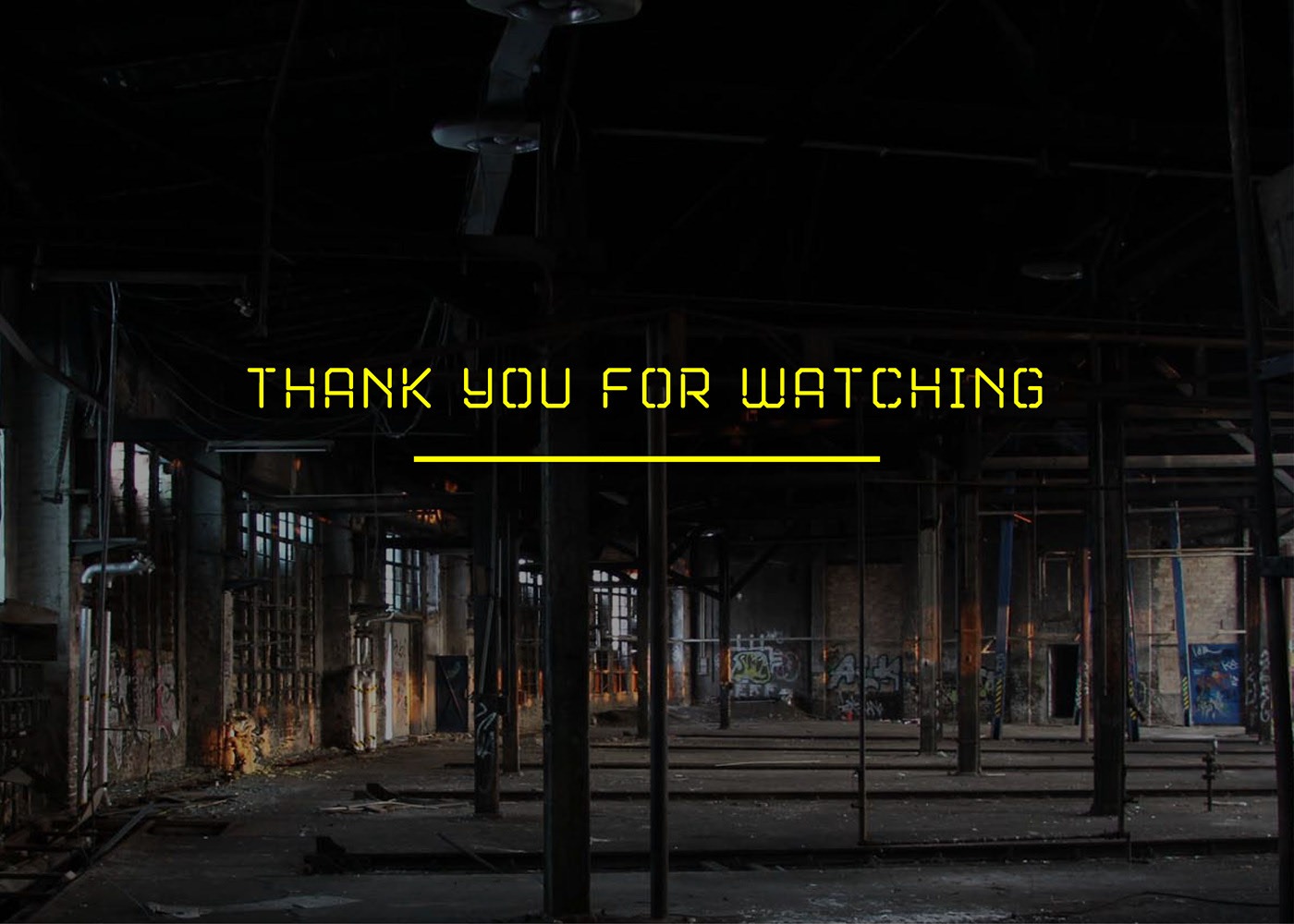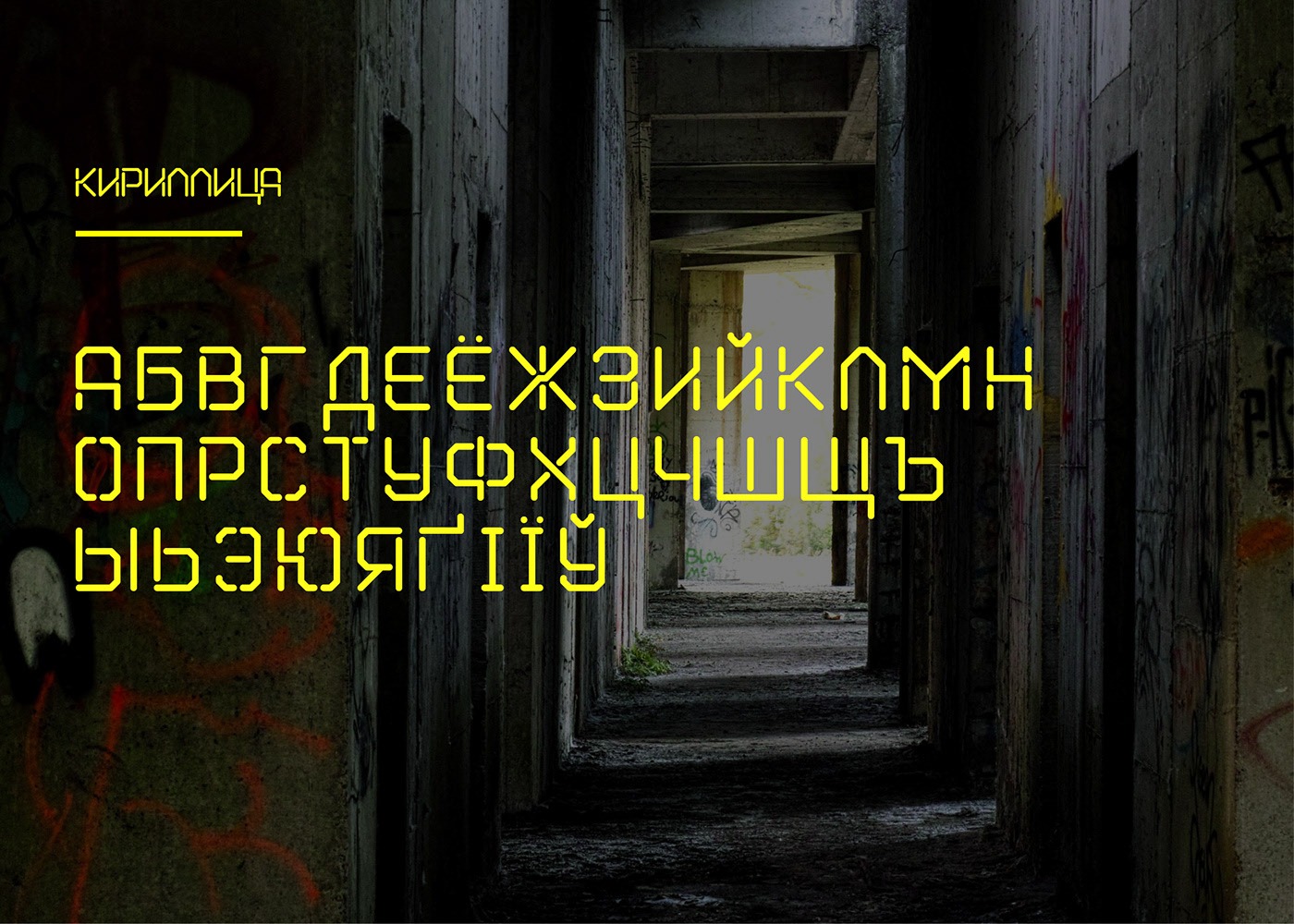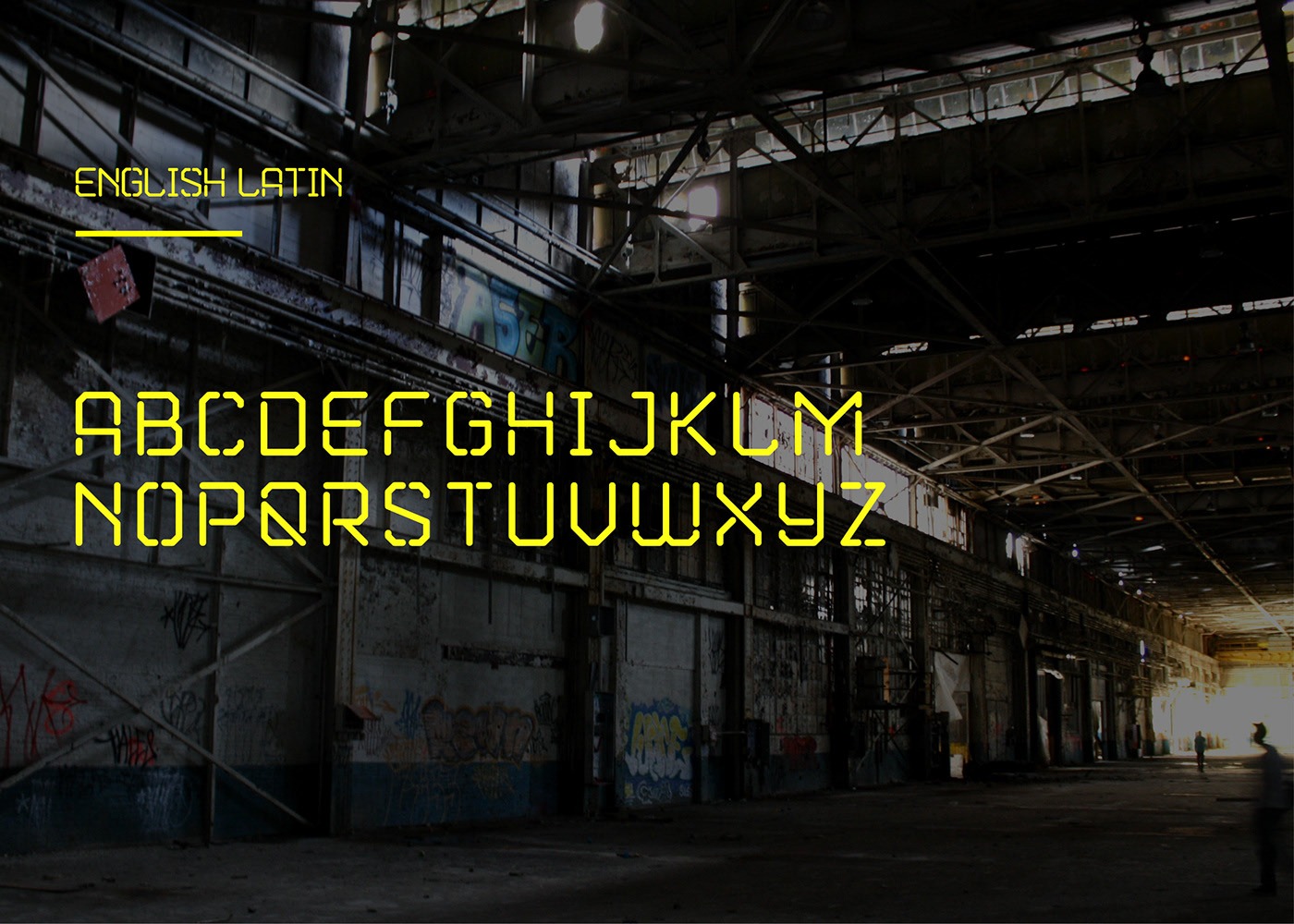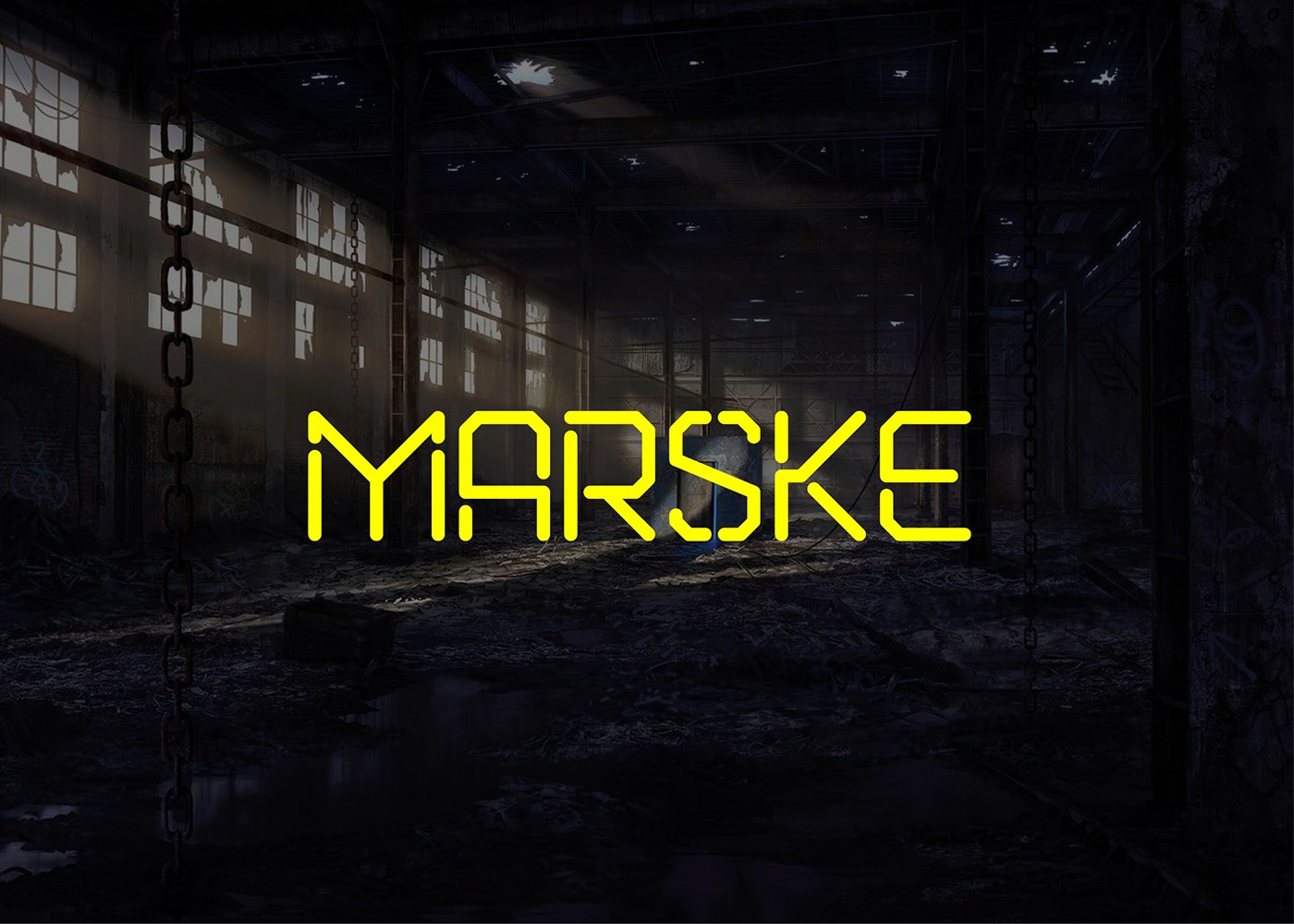
Marske Display Font
This font comes with a modern style. It’s designed and shared by Sergiy Tkachenko. Marske Fonts will be perfect for a variety of projects such as logos & branding, invitations, posters, flyers, wedding designs, social media posts, advertisements, product packaging, product designs, labels, photography, watermarks, special events or movie poster titles.